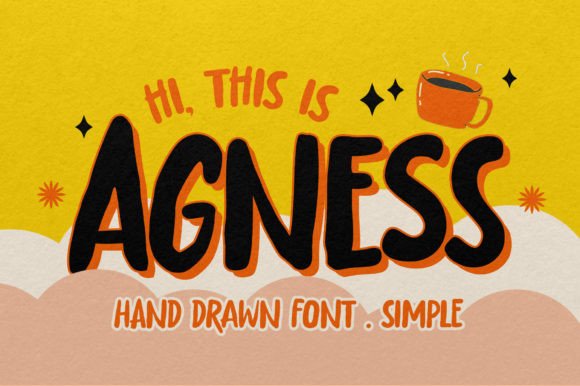
The Agness Font: A Fun and Quirky Hand-Drawn Sans Serif
I’ll never forget the time I was working on a project for a client’s birthday party invitation. I had a clear vision of a playful, whimsical design, but I just couldn’t find the right font to bring it all together. That’s when I stumbled upon the Agness font, and it was love at first sight! ✨
Agness is a fun and quirky hand-drawn sans serif font that has a unique personality and charm. Its irregularities and imperfections make it feel approachable and friendly, perfect for designs that need a personal touch.
An Honest Review of Agness Font
- ✨ Unique and quirky personality that adds a touch of whimsy to any design
- ✅ Works well for both digital and print designs
- ✅ Perfect for designs that need a friendly, approachable feel
While Agness is an amazing font, it’s not without its quirks. Here are a few things to keep in mind:
- ⚠️ Some characters may not work well in all contexts, such as the lowercase “g” and “y”
- 🤔 Limited availability of stylistic alternates, which may limit its versatility
The Backstory of Agness Font
Agness is a hand-drawn sans serif font designed with love and care. According to the designer, Agness was inspired by the imperfections and irregularities of handwriting. The goal was to create a font that felt approachable and friendly, perfect for designs that need a personal touch.
Q: What is Agness font best used for?
A: Agness font is best used for designs that need a friendly, approachable feel, such as birthday party invitations, social media graphics, and blog posts.
Q: Is Agness font suitable for body text?
A: While Agness is highly legible, it’s best used for headlines and titles. For body text, you may want to use a more traditional font.
Q: Is Agness font available in different weights?
A: Agness font may be available in different weights, but it’s best to check with the font foundry for specific details.